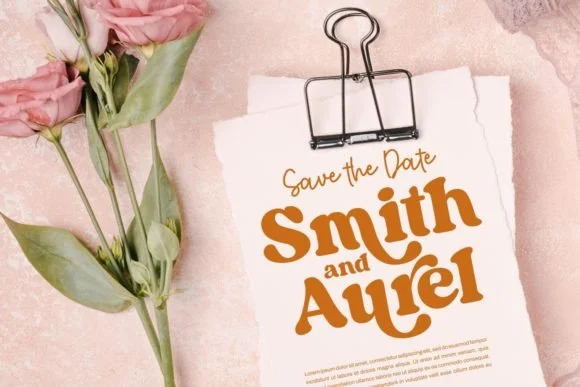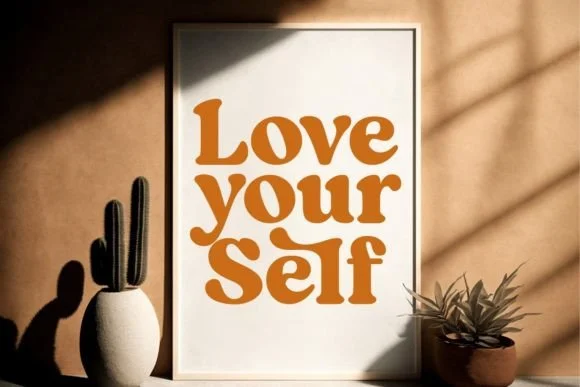
Picky Retro Fonts bring back the charm of past decades' bold curves, funky colors, and nostalgic character. Whether you're channeling the ‘70s, ‘80s neon, or mid-century diner vibes, these fonts add personality and a dash of fun.
Designer: Keithzo (7NTypes)
Released: Digitized between the late 1990s and early 2010s
Style: Bubble lettering, psychedelic scripts, slab serifs, funky display fonts
Rounded shapes, bold outlines, and stylized swashes
Playful and decorative is best for large text
Often includes extras like shadows, outlines, or gradients
Limited use for body text works best in headlines
Pair these fonts with simple sans-serifs like Helvetica or clean serif fonts to balance the look. These fonts are best used for big posters, social graphics, or packaging.